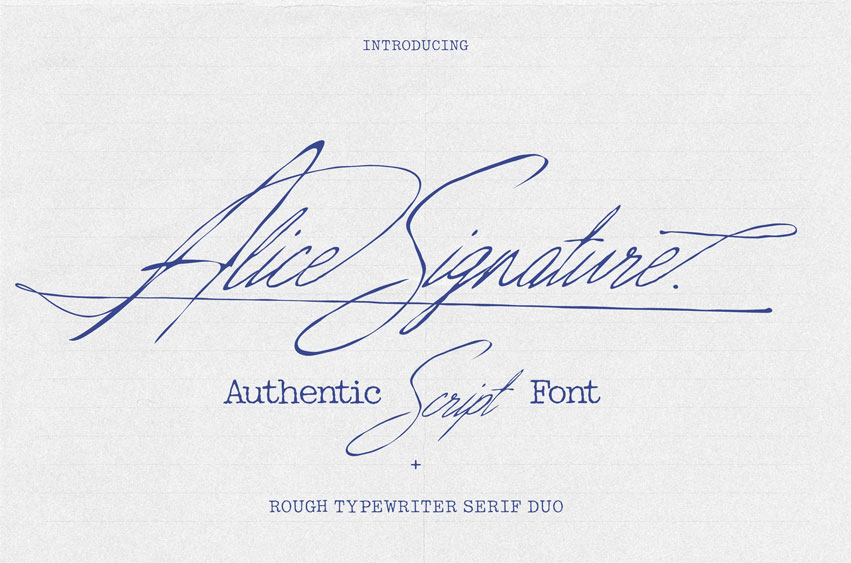
Alice Signature Font
Alice Signature Font is a realistic handwritten script font (with over 230+ alt glyphs!) that captures the elegance and whimsical nature of a genuine pen-on-paper signature.
Alice Signature mimics the natural imperfections, pressure variations, and flowing rhythm of real handwriting. The slightly rough ink edges and organic baseline shifts make every word feel personal, intimate, and undeniably real.
Pair the signature script with the included typewriter serif for a stunning vintage aesthetic.
Perfect Use Cases:
• Luxury Wedding Stationery (Save the Dates & Formal Invitations, Place Cards & Seating Charts, Vow Books & Menus)
• Personal Branding & Logos (Give your business an “expensive” feel. The elegant script is perfect for fashion boutiques, interior designers, photographers, and luxury real estate agents.)
• Editorial & Magazine Layouts ( Lookbooks for jewelry or apparel brands, Elegant book covers).
• Product Packaging (If you sell candles, skincare, or artisanal goods, this font duo communicates quality and craftsmanship. It looks stunning on: (Minimalist wine or perfume labels, skincare jars and boxes, thank you cards for boutique orders.)